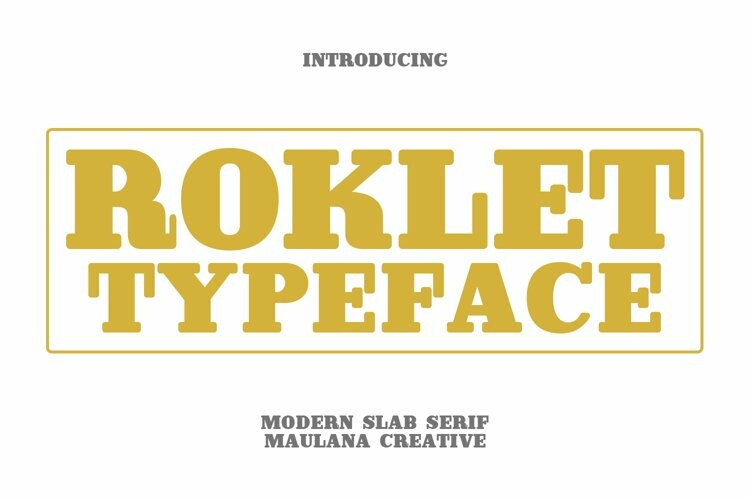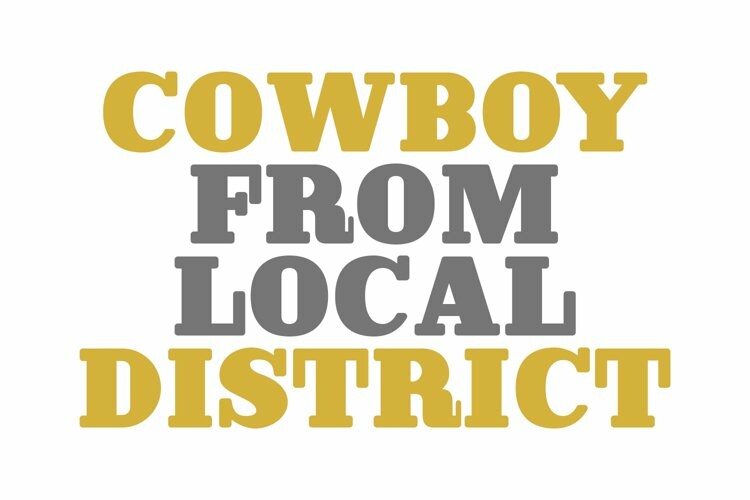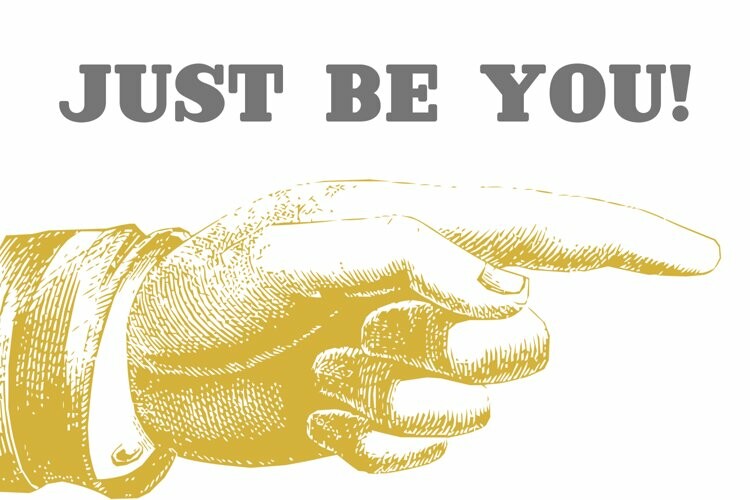
Roklet Font
Roklet FontRoklet is a semi slab serif font. With round bold stroke, fun character with a bit of ligatures and alternates. To give you an extra creative work. Roklet font support multilingual more than 100+ language. This font is good for logo design, Social media, Movie Titles, Books Titles, a short text even a long text letter and good for your secondary text font with sans or serif. Make a stunning work with Roklet font.